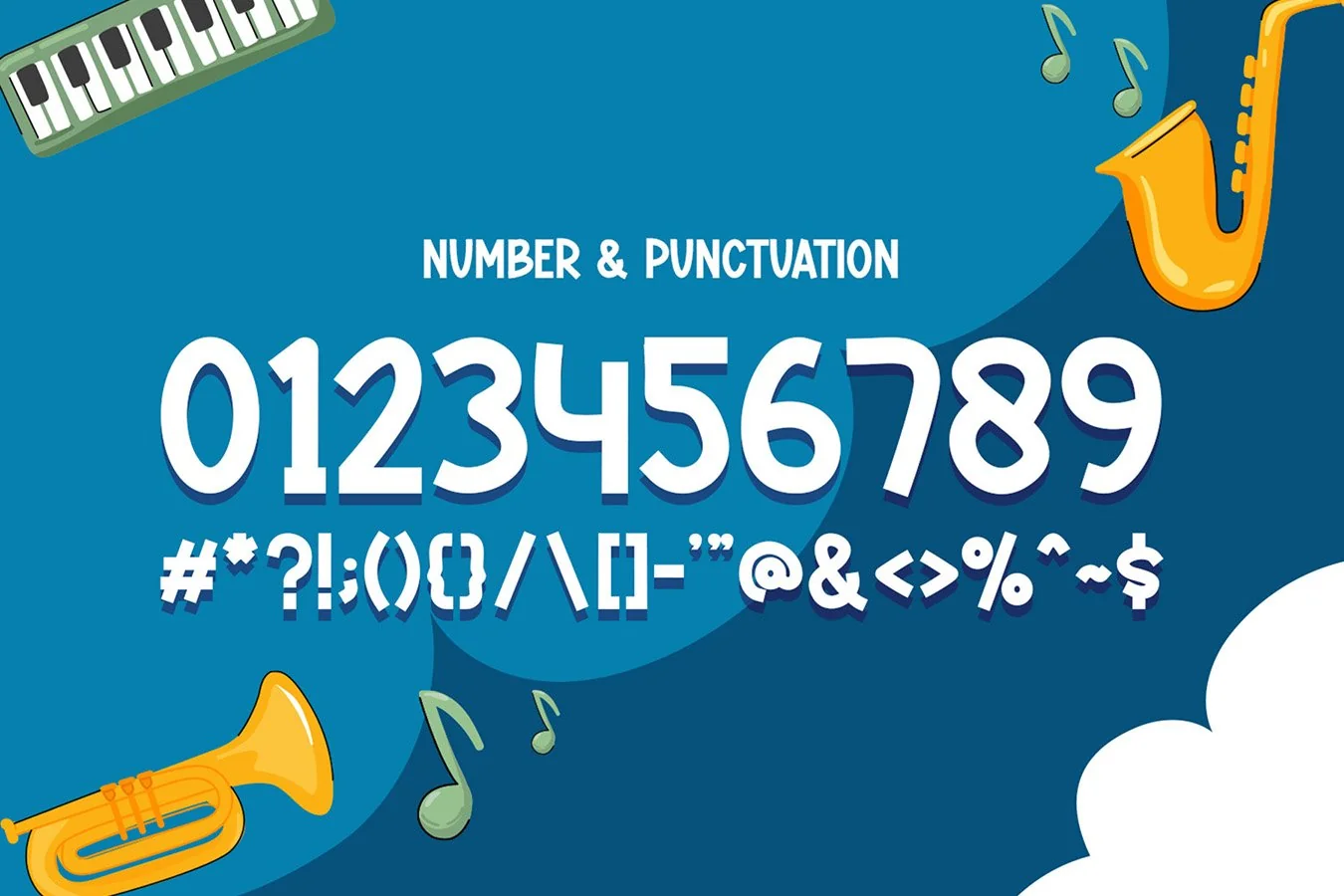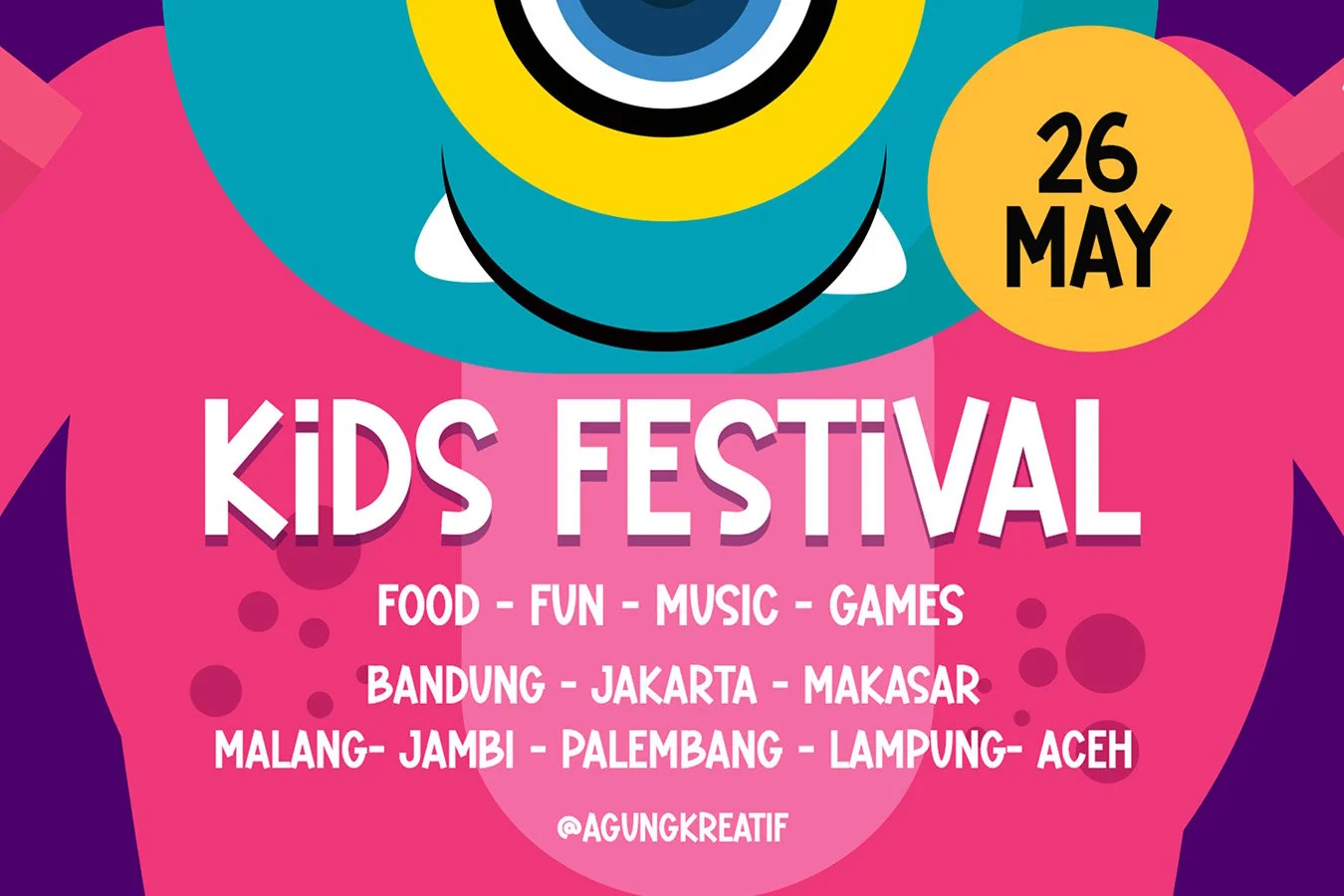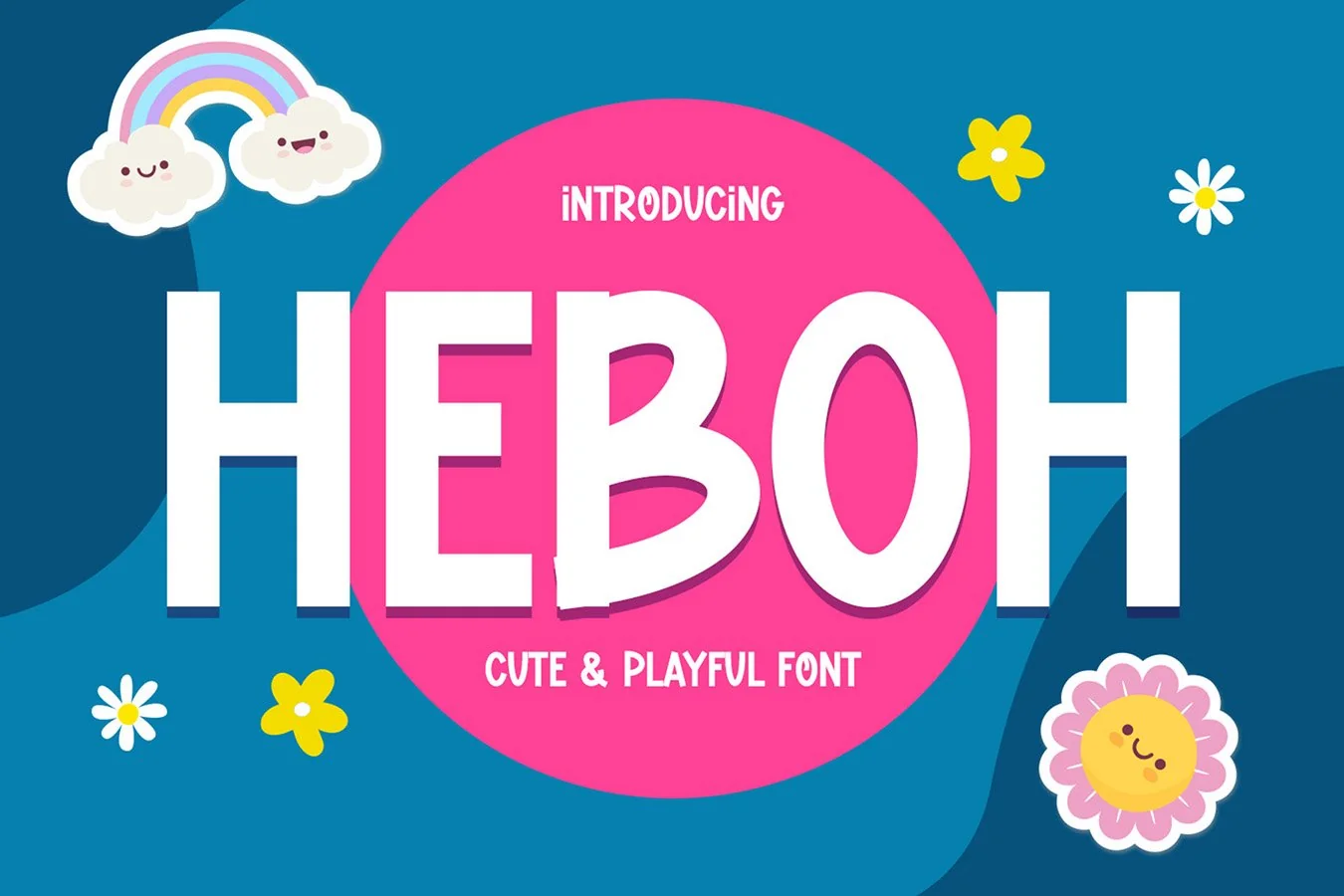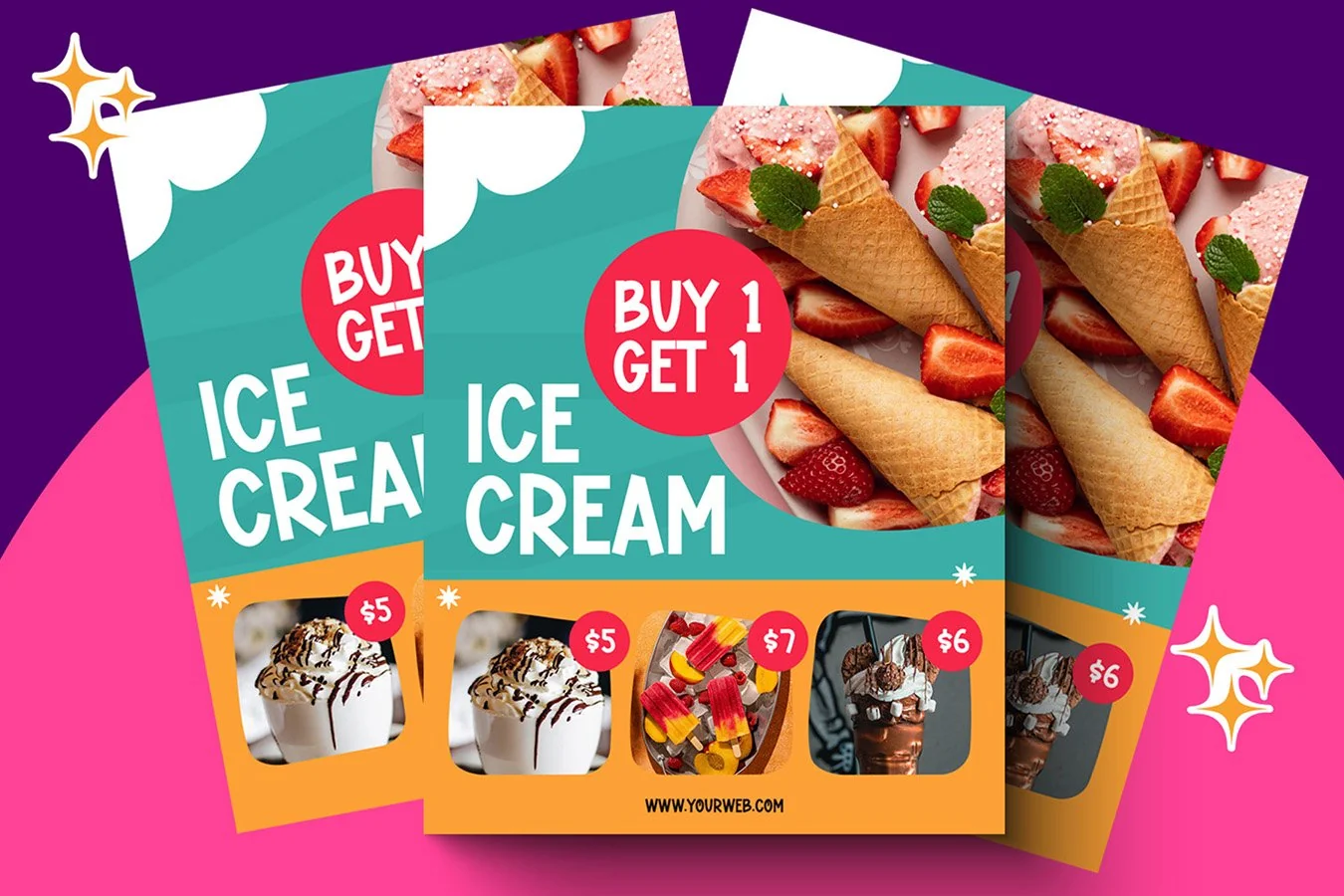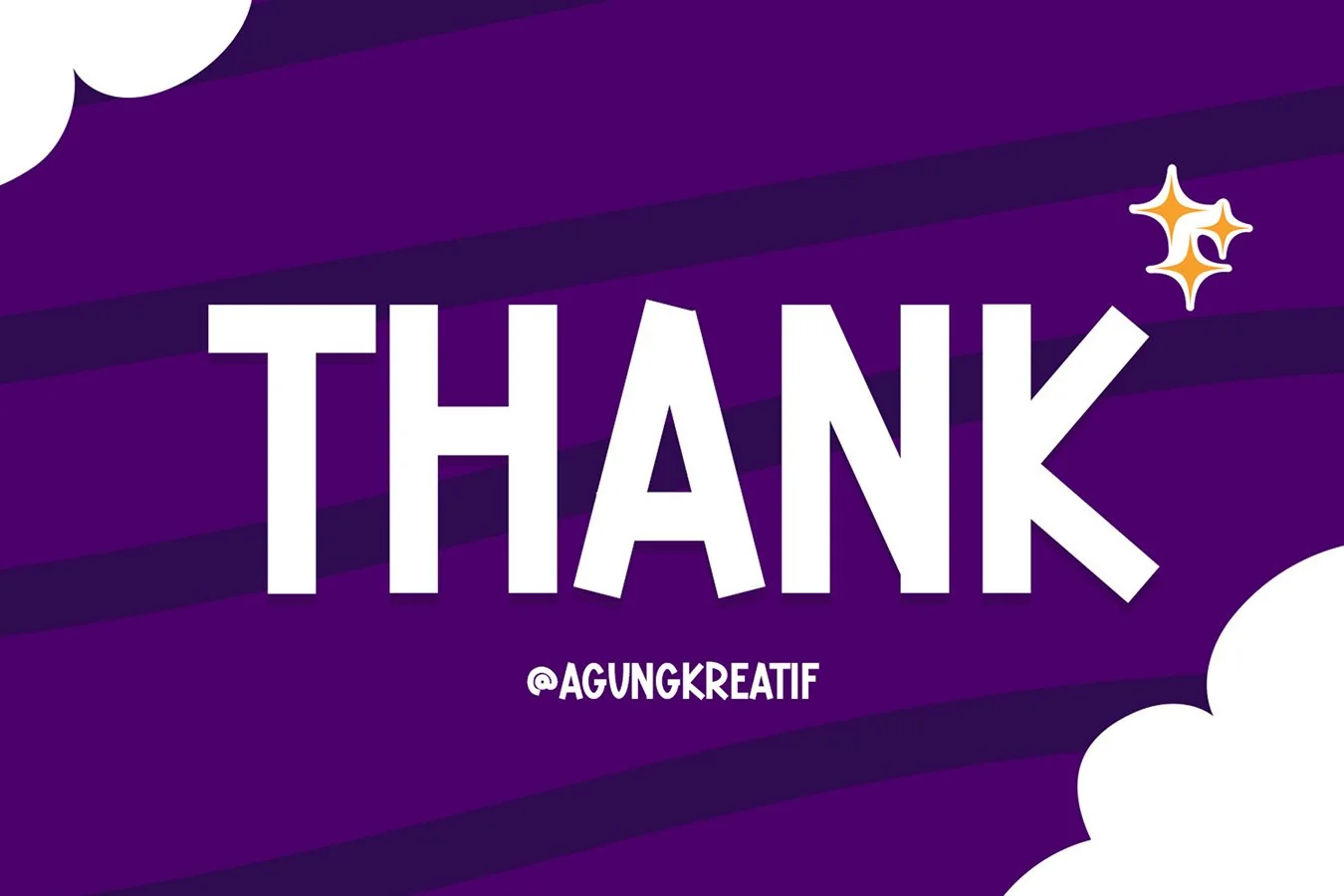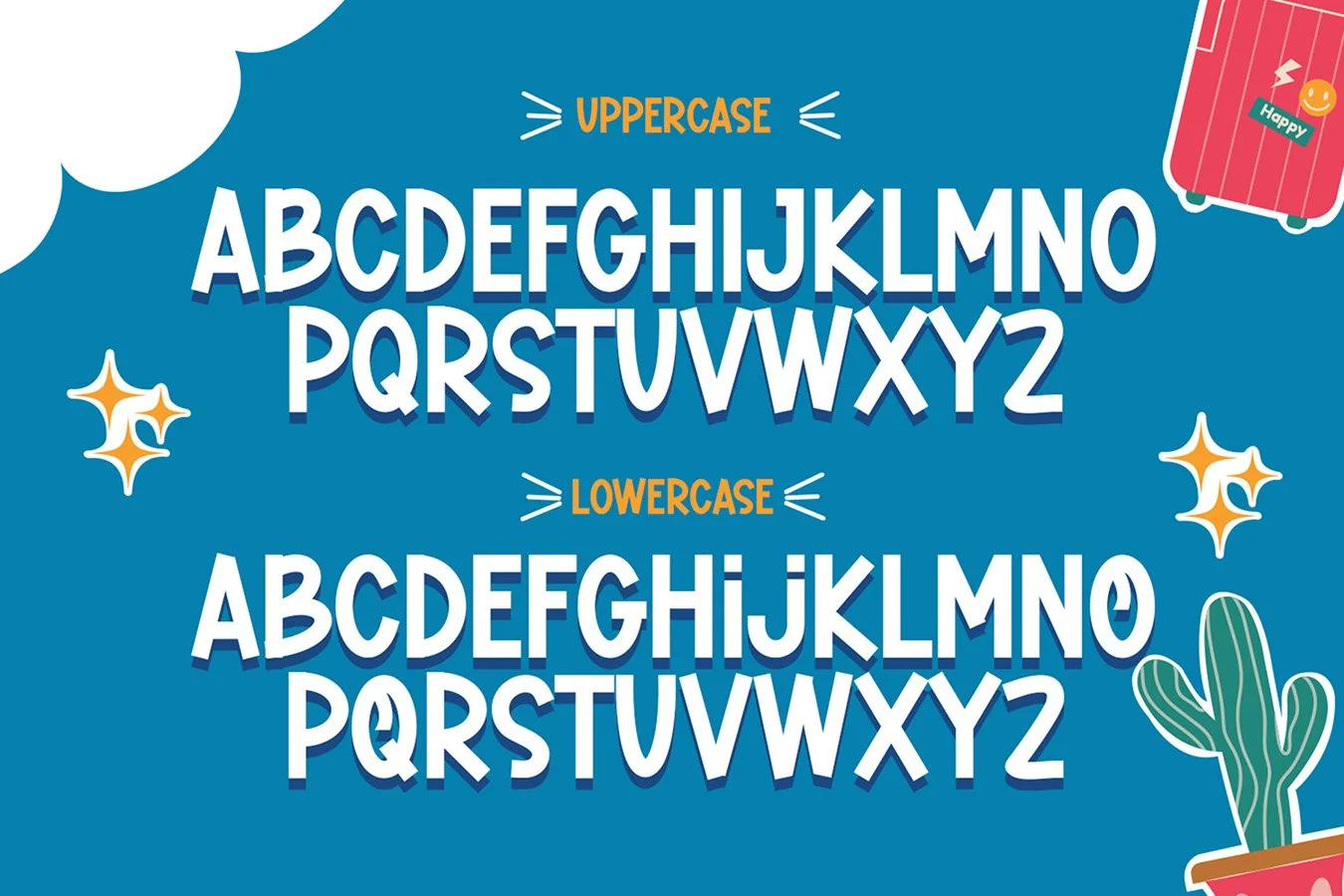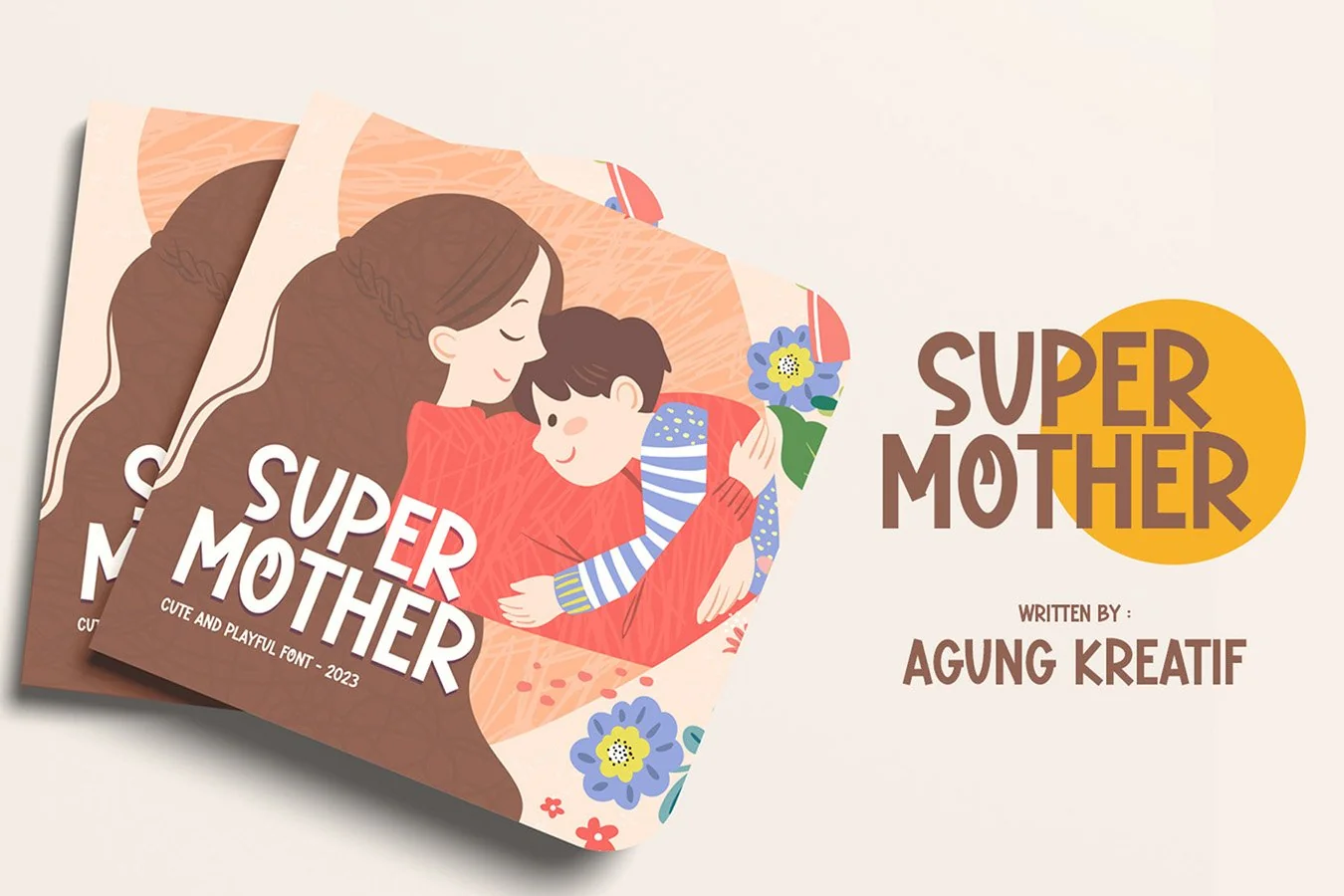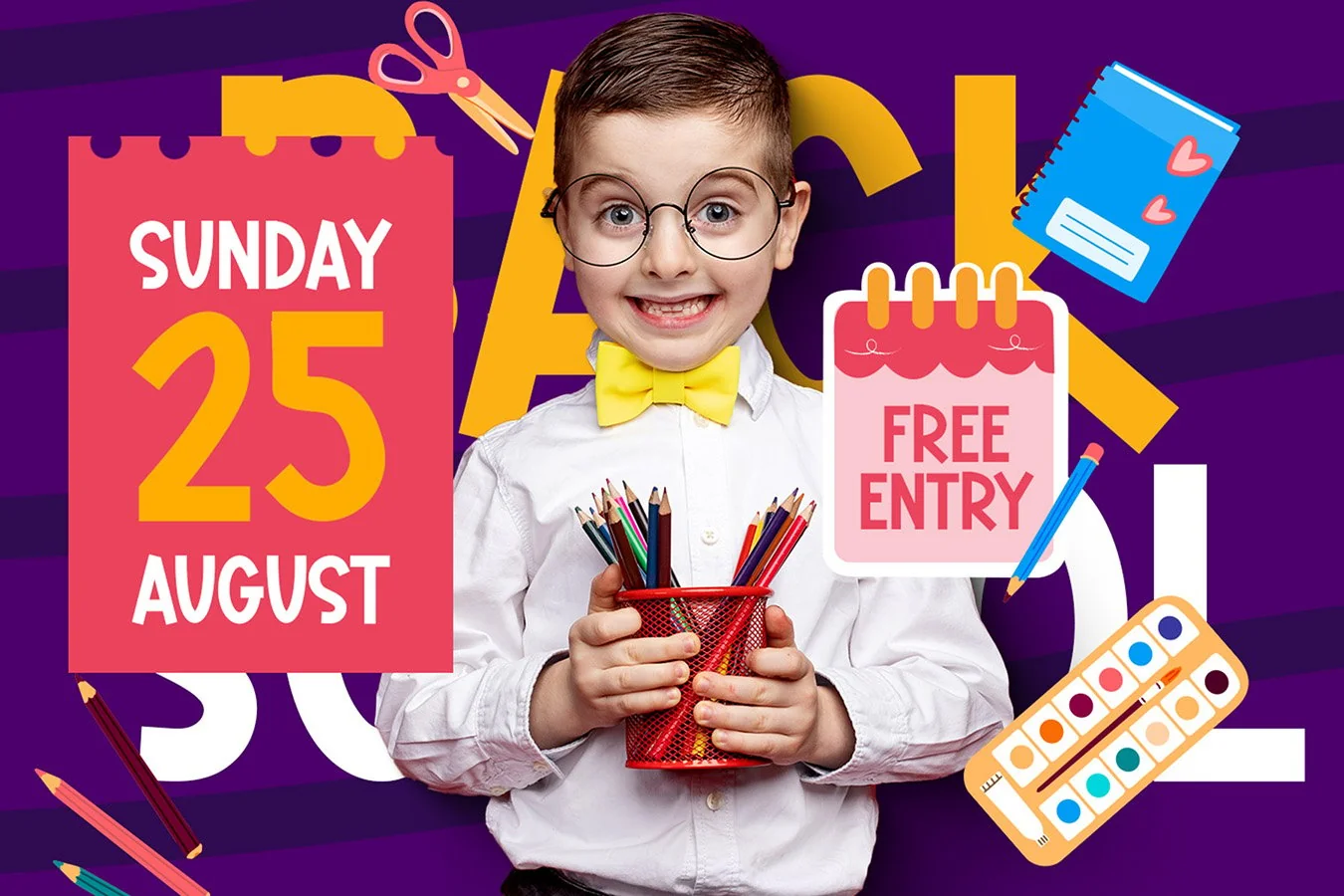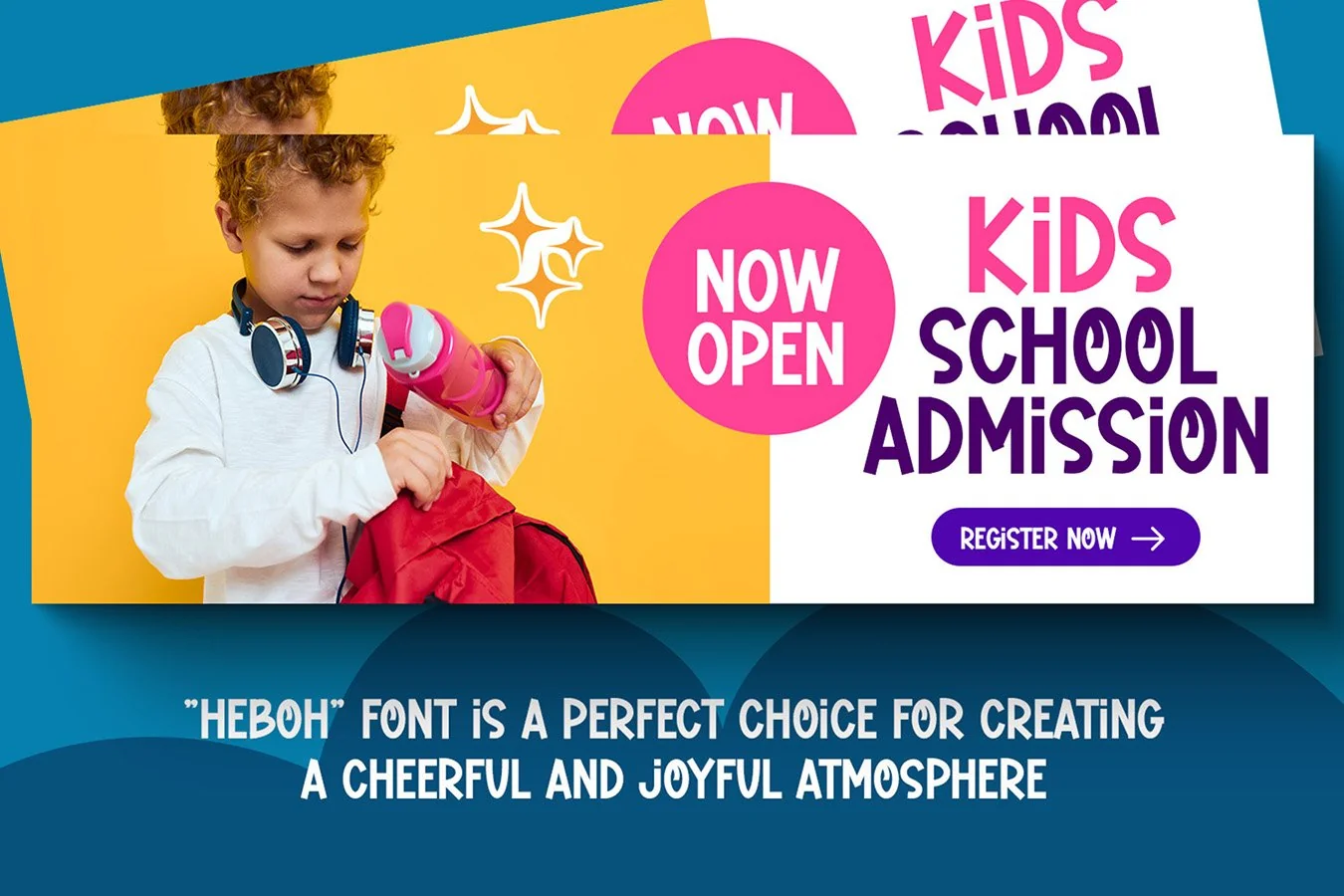
Heboh – Cute and Playful Display Font
Heboh – Cute and Playful Font
Heboh Font is a cute and playful font that is perfect for a variety of design purposes, such as logos, branding, social media, and more. This font has a cheerful and fun character, so it can make your designs more eye-catching and engaging. This font is available in TTF and OTF formats, so it can be used in a variety of graphic design and social media applications.